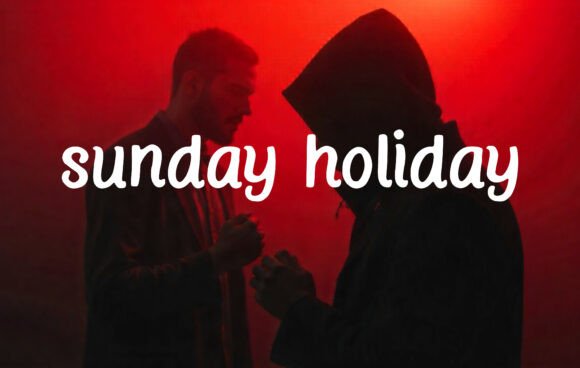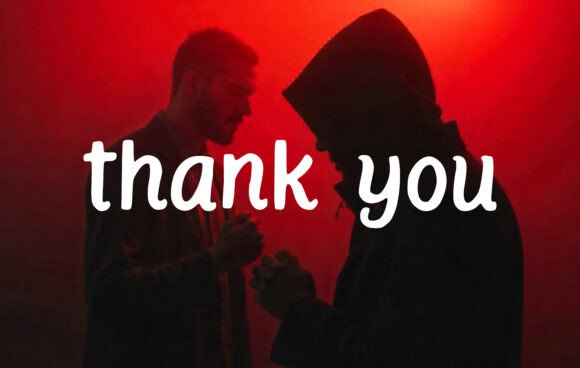
Unlocking the Power of Emotion: A Deep Dive into the Moody Handwritten Script Font
Have you ever been in the midst of working on a design project, and suddenly, you’re faced with a daunting task: finding the perfect font to capture the essence of your message? I recall a particularly challenging project where I needed to create a cinematic movie poster that would evoke a sense of drama and urgency. The client wanted a font that would cut through the noise and leave a lasting impression. That’s when I stumbled upon the Emotion font, a game-changing handwritten script that has since become a staple in my design toolkit.
What Makes Emotion Font So Special?
The Emotion font, designed by Olivia Font Co, is a moody and modern handwritten script that strikes the perfect balance between organic warmth and a bold, contemporary edge. Its fluid, upright structure and smooth, consistent line weight make it highly legible while retaining its “human” touch. This font is perfect for projects that demand high-impact sentiment, such as dramatic social media quotes, edgy brand identities, and cinematic movie posters.
Honest Review: The Good and the Great
Here’s what I love about the Emotion font:
- ✨ Legibility: The font’s smooth line weight and fluid structure make it easy to read, even at smaller sizes.
- ✅ Versatility: Emotion works beautifully with dark, atmospheric imagery and high-contrast white or neon text.
- 💥 Impact: The font’s thick, rounded terminals and tight letter-spacing give it a powerful presence that cuts through the noise.
And here are some minor quirks to consider:
- 🤔 Limited use cases for body text: While Emotion is perfect for headlines and titles, it may not be the best choice for longer blocks of text.
- ⚠️ Glyph limitations: Some users have reported limited glyph options, which may restrict the font’s use in certain design projects.
A Practical Guide to Using Emotion Font
- Experiment with OpenType features, such as Stylistic Alternates, to add visual interest to your text.
The Story Behind Emotion Font
The Emotion font was designed by Olivia Font Co, a boutique font foundry dedicated to creating unique and impactful typefaces. According to the design team, Emotion was inspired by the raw intensity of human emotion and the need for a font that could capture that feeling in a modern, digital landscape.
| What is the Emotion font best suited for? | The Emotion font is perfect for projects that demand high-impact sentiment, such as cinematic movie posters, dramatic social media quotes, and edgy brand identities. |
| Can I use Emotion font for body text? | While Emotion is legible, it may not be the best choice for longer blocks of text. Consider using a sans-serif font for body text and reserving Emotion for headlines and titles. |
| Is Emotion font available in different weights? | Currently, Emotion font is available in a single weight, but the design team may release additional weights in the future. |